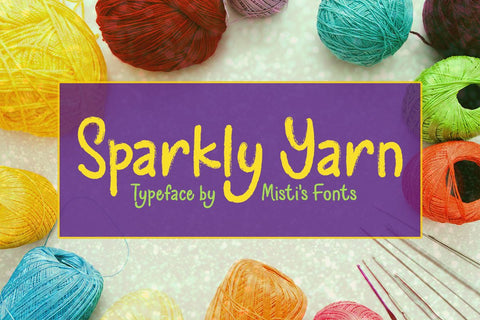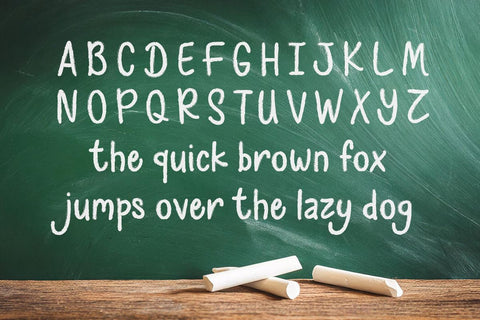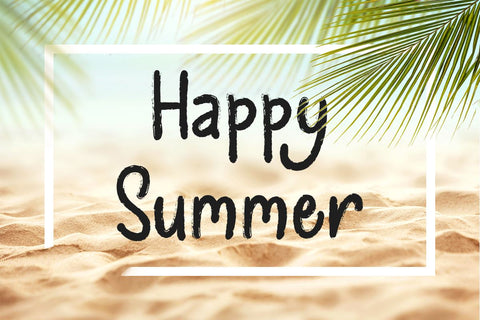
Sparkly Yarn
Introducing Sparkly Yarn, a delightful handwritten chalk-styled font that brings a touch of whimsy to your projects. With its playful, textured strokes, Sparkly Yarn is perfect for creating charming posters, invitations, and crafts. Add a sprinkle of fun and creativity with this unique font!